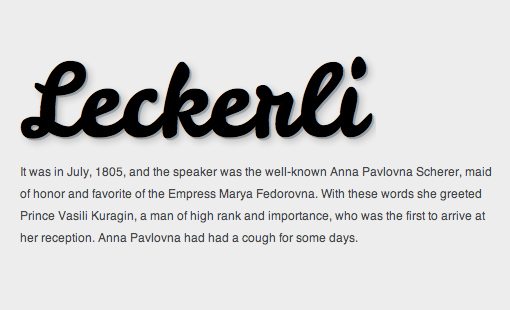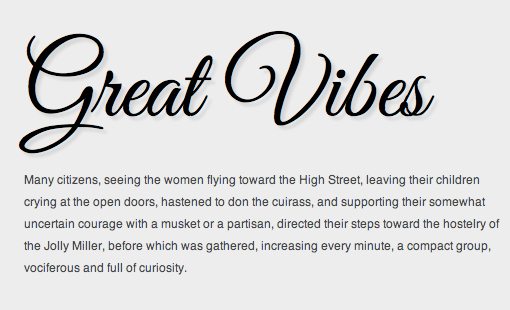
Simple Fonts That Look Like Handwriting On Google Docs With New Ideas, Some options are lexend exa, questrial, and quicksand. With its bold lettering and elegant curves, abril fatface is a serif inspired by the tilting fonts popularized in british and french ads and posters from the 19th century.
Rumi is a font that looks like true handwriting. Possibly we know one of the most popular fonts such as comic sans. This typeface features a full set of uppercase and lowercase characters, numbers, as well as different special characters. And a perfect example of fonts that look like handwriting.
Are google fonts free to use? One of the most effective ways to pair fonts is by combining a traditional serif with a more modern sans serif—like this google font combination, abril fatface and lato. Fonts that look like handwriting on google docs. This one also has some sweet, fun roots that are worth sharing. Fantastic Google Web Fonts for Headings and Body Text.
Personally, i like the ones that kinda look like handwriting, but i have some good ones if it needs to look more professional and not as boring as times new. This typeface offers a molding to the squashed, twisted and strange glyphs of comic sans while maintaining that touch. A google font called ‘kalam’ is the closest option to resemble handwriting on the platform. It conveys a truly unique personality, being a mixture of more contrasting vibes. 10 Most wanted Google Fonts.
A young mom’s handwriting style inspires the font. Making the web more beautiful, fast, and open through great typography This gorgeous font that looks like handwriting includes uppercase and lowercase letters, numerals, and a large range of punctuation and ligatures. Google does not allow users to add custom fonts so unfortunately, it is not possible to import your handwriting as a font in google docs. The 10 Best Script and Handwritten Google Web Fonts Vinothplus.
This one also has some sweet, fun roots that are worth sharing. When you need a sloppy handwriting font that still manages to communicate a high level of elegance, lovas is the font for you. Google’s font collection is an amazing resource for beginner designers and pros alike. Possibly we know one of the most popular fonts such as comic sans. Pin by Tiffany Kay on Crafts Free fonts for cricut, Aesthetic fonts.
In the below picture, you will find the new 60 new fonts, its names, and how they look. A young mom’s handwriting style inspires the font. Check the picture and you will understand right away what do i mean. It’s fun without looking childish (which can be a problem with a lot of handwriting fonts). 45 Fonts That Look Like Handwriting Free in Word, Canva, Google & More.
This super smooth font looks like it’s straight out of an expensive fountain pen. Although you can’t import your handwriting as a font in google docs, a font called “kalam” is an option that resembles handwriting. Some options are lexend exa, questrial, and quicksand. These are the 60 new fonts for google docs. Best free handwriting fonts from Google Fonts 2020 Fluxes Freebies.
It conveys a truly unique personality, being a mixture of more contrasting vibes. I also added some fonts if you have a presentation and want a fun title or heading, and some random ones i like too. This gorgeous font that looks like handwriting includes uppercase and lowercase letters, numerals, and a large range of punctuation and ligatures. Making the web more beautiful, fast, and open through great typography Handwriting fonts for document design.
This one also has some sweet, fun roots that are worth sharing. Different fonts were used on the harry potter book covers, for its chapter title and elsewhere. Google does not allow users to add custom fonts so unfortunately, it is not possible to import your handwriting as a font in google docs. Although you can’t import your handwriting as a font in google docs, a font called “kalam” is an option that resembles handwriting.